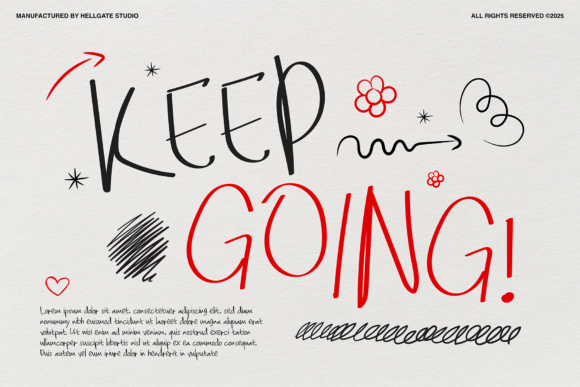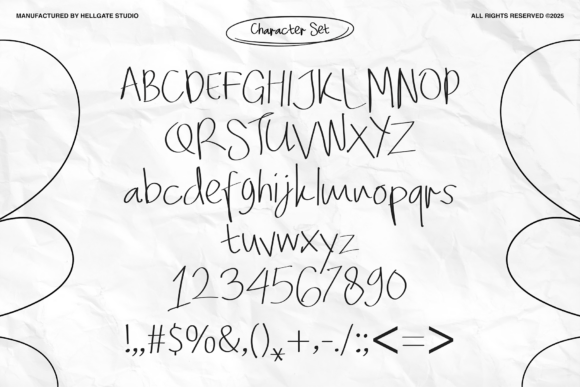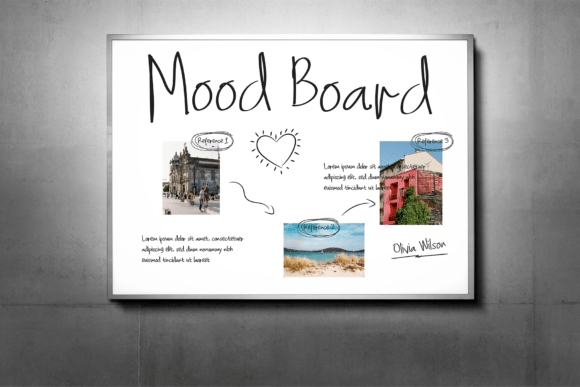
Unleashing Your Creative Spark
Have you ever felt that rush of excitement when a brilliant idea strikes you, and you can’t wait to bring it to life? That’s the magic of creativity, and it’s precisely what the Blue Kasual Handwritten Font is designed to spark. This charming typeface is the perfect companion for designers who crave a lively and spirited charm in their projects.
With the Blue Kasual Handwritten Font, you can effortlessly infuse your designs with a playful touch, making it an ideal choice for themes that demand a fun and carefree attitude. Its super flexibility allows you to tweak the text and color palette to perfectly align with your requirements, ensuring outstanding quality rendering every time. Whether you’re a seasoned designer or just starting out, this font is a valuable addition to your toolkit, waiting to elevate your creative vision.
- Unique Characteristics: This handwritten font features a casual, cursive style with subtle imperfections, giving it a relaxed and friendly feel.
- Language Support: Blue Kasual Handwritten Font supports a wide range of languages, including Latin, Cyrillic, and Greek scripts.
- Font Style: The font includes both regular and bold weights, allowing for varying levels of emphasis and visual interest.
Designer Review: Blue Kasual Handwritten Font
Overall, I think Blue Kasual Handwritten Font is a lovely addition to any design project. ✨ It’s perfect for creating a casual, relaxed vibe, and the handwritten feel adds a touch of personality to any text. The font is highly customizable, allowing you to adjust the thickness, spacing, and alignment to suit your design needs.
The font’s most notable feature is its wide range of styles, from thin to thick, and its elegant, flowing curves. ✨ The script-like design is reminiscent of handwritten notes, which can evoke a sense of nostalgia and warmth in your audience.
- Perfect for casual, relaxed designs
- Elegant, flowing curves
- Wide range of styles
- May not be suitable for formal or professional designs
- Can be difficult to read at small font sizes
Overall, I’d give Blue Kasual Handwritten Font 4 out of 5 stars. While it has some limitations, it’s a great choice for designers looking to add a personal touch to their projects. Just be mindful of its potential limitations, and use it wisely to achieve the desired effect.
To get the most out of Blue Kasual Handwritten Font, use it in combination with other creative elements such as illustrations, graphics, and colors.
Experiment with different font sizes, colors, and styles to create visually appealing designs.
Use Blue Kasual Handwritten Font for titles, headings, and emphasis to create a unique and personal touch.